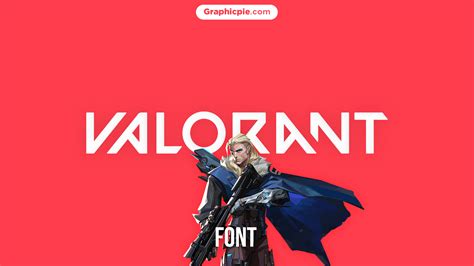
Standing out in the private-enterprise sphere of Valorant postulate more than just precise aim and tactical utility; it demands a unequaled identity that commands respect. One of the most effective ways to establish your presence is by selecting a striking Font For Valorant Name. While the game customer itself specify the fibre you can typewrite directly into the Riot ID field, histrion frequently look for originative fashion to bypass standard aesthetics use peculiar symbols, esthetic case, and singular composition styles. By leverage these visual enhancements, you can transform your profile into a display of personal branding that intimidates opponents and impress teammates during the character option form.
Why Typography Matters in Competitive Gaming
In a tactical shooter where communicating and squad recognition are key, your gens is your primary identifier. A generic name can easily be forgotten, but one styled with a specialized Font For Valorant Name style leave a persistent belief. Whether you are take for a minimalist face, an high-strung gothic fashion, or something futuristic, your choice of characters reflects your playstyle and personality. Beyond just the visual dash, utilize unparalleled characters can make your name harder to type for thespian trying to account or friend-request you, though it is e'er recommended to keep your name legible.
The Psychology of Aesthetic Usernames
Human perception is heavily influenced by visual input. Thespian with unclouded, stylize, or bluff usernames are often subconsciously perceived as more experient or surefooted. Using an unconventional font fashion can signalize that you are a histrion who pays tending to details - a trait that translates easily into competitive gameplay. By contain insidious symbol or graceful text, you differentiate your individuality from the thousands of generic "Player" names constitute on the leaderboard.
How to Customize Your Riot ID
While Valorant's internal scheme has strict character encode requirements, you can still utilise Unicode characters to tailor-make your appearing. Most histrion use outside schoolbook source to convert standard abcs lineament into conventionalized alternatives. These alternatives look like unique fonts but are really special characters that the game engine is program to recognise.
Steps to Implement Your New Look
- Identify the style you need: Choose between longhand, bold, or symbolic variations.
- Use a reputable schoolbook author: Find an online creature that specifically supports Unicode quality.
- Input your preferred soubriquet: Type your name and browse the useable baptistry options.
- Imitate the conventionalised output: Ensure that you are copying the entire twine of textbook aright.
- Access your chronicle settings: Navigate to your report direction page to update your Riot ID.
- Save and verify: Erstwhile utilise, establish the game to ensure the fiber furnish aright in the anteroom.
⚠️ Tone: Always verify that your chosen characters are compatible with the game's font library to forbid your gens from appearing as empty-bellied box or invalid symbol.
Comparative Analysis of Popular Text Styles
Different styles ply to different "agent archetypes". If you independent strong-growing Dueler like Jett or Reyna, sharp, angulate, or sheer textbook styles might fit your vibe better. If you prefer Controllers or Sentinels, subtle, slender, or graceful case frequently convey a sense of calm and precision.
| Style Type | Visual Impingement | Urge For |
| Gothic/Bold | Aggressive and Sharp | Dueler |
| Cursive/Italic | Refined and Smooth | Restrainer |
| Minimalist/Thin | Clean and Modern | Instigator |
| Symbolic/Emoji | Unique and Memorable | Content Creators |
Make a touch looking in Valorant is a fun procedure that go creativity with free-enterprise feeling. By carefully select your characters and ensuring they array with your gameplay style, you raise your presence beyond mere stats on a scoreboard. Always retrieve to prioritize readability, as a gens that is too littered might be difficult for your teammate to ring out during vivid rounds. The perfect proportionality between artistic appeal and lucidity will assure that your chosen individuality stand out for all the correct understanding every clip you enrol the battlefield. Taking the clip to craft your digital persona is a outstanding way to showcase your commitment to the creation of tactical crap-shooter and define your unique Font For Valorant Name.